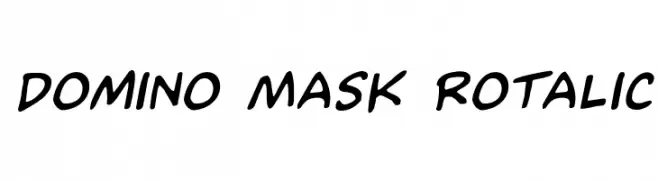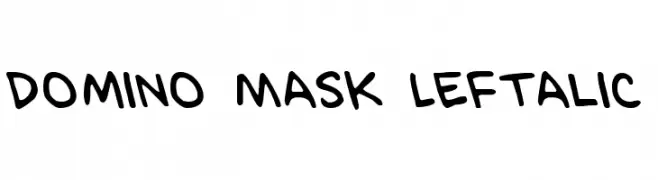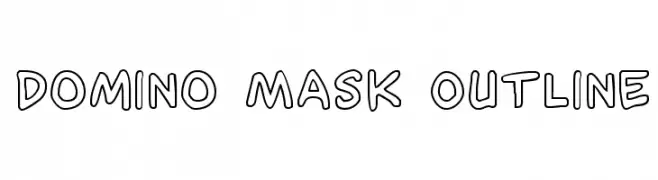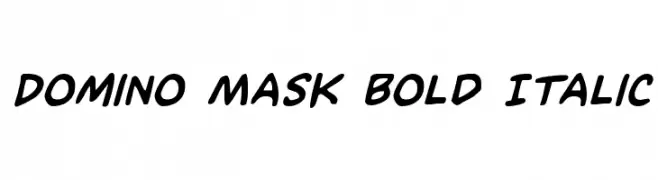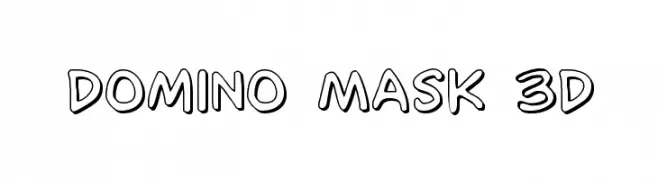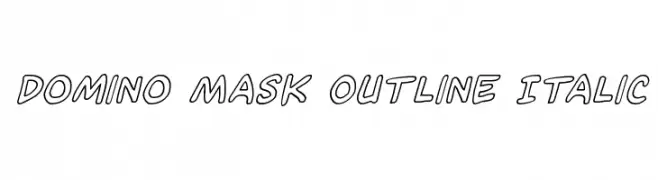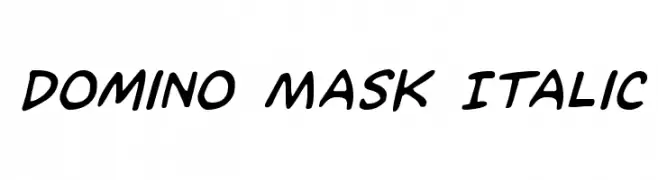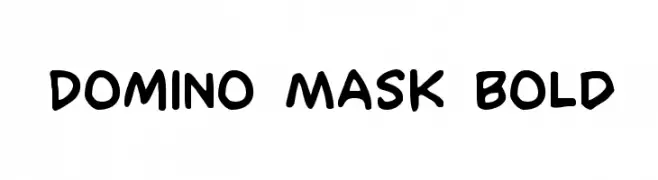
A bold, humorous font with exaggerated anatomical shapes and playful design.
An ornate script font with intricate swashes and flourishes.
A playful, handwritten font with smooth, flowing curves and a casual style.
A playful, handwritten font with bold, rounded characters and a slight slant.
A playful, outlined font with a hand-drawn, whimsical style.
A bold, italic, handwritten font with a playful and dynamic style.
A playful, bold font with a 3D effect and rounded, irregular characters.
A playful, italic outline font with bold, rounded characters.
A playful, handwritten italic font with smooth, rounded strokes.
A playful, italicized handwritten font with expanded width and smooth, rounded strokes.
A playful and bold font with rounded, irregular letterforms.
A playful, handwritten-style font with rounded edges and a casual appearance.
A playful, handwritten-style font with rounded edges and consistent stroke thickness.
A playful, condensed italic font with smooth, rounded strokes.
A playful 3D italic font with bold, rounded characters and a modern feel.
A playful, handwritten font with bold, rounded strokes.
A playful, hand-drawn font with bold, rounded characters and a whimsical style.
A playful, hand-drawn style font with rounded, bold characters.
A sophisticated script font with elegant, flowing cursive strokes.
A playful, hand-drawn font with a whimsical and cartoonish style.
A playful, rounded font with a marshmallow-like, bubbly appearance.
A bold, modern sans-serif font with a strong, impactful presence.
A dynamic and elegant script font with flowing, cursive letterforms.
A playful, 3D block-style font perfect for children's designs.
A whimsical, star-studded font with a celestial theme.